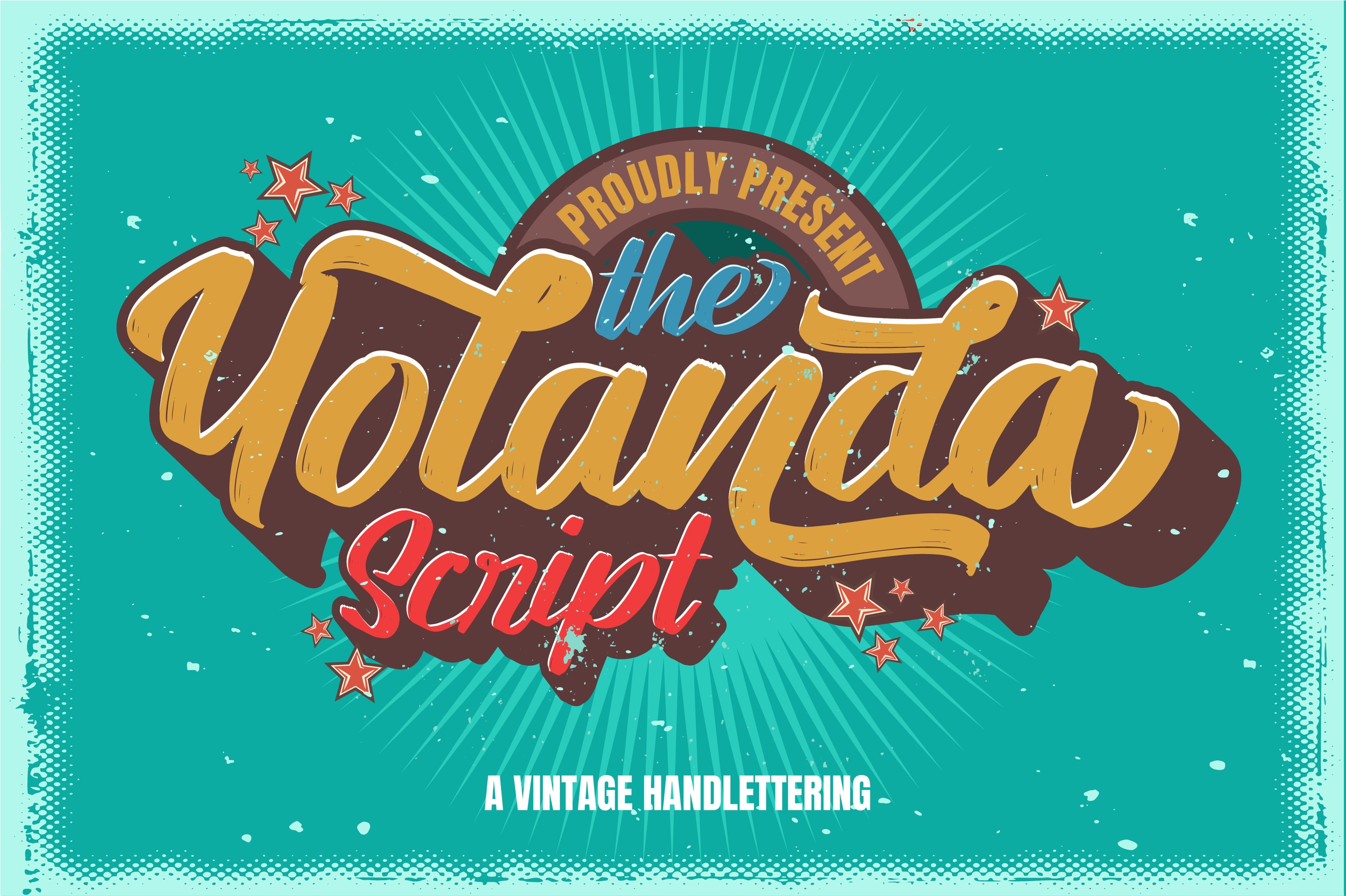
Yolanda Font
Yolanda Font is perfect for feminine brand identities, beauty product packaging, fashion magazine layouts, lifestyle blogs, boutique signage, cosmetics advertising, wellness center branding, elegant greeting cards, social media graphics, and modern calligraphy projects.
What makes Yolanda Font so exciting is its perfect fusion of contemporary elegance and approachable femininity that instantly creates emotional connections with modern audiences seeking authentic and sophisticated design solutions. This typeface captures the essence of modern femininity through its graceful curves and confident letterforms that balance strength with delicate beauty. The font's captivating appeal lies in its ability to communicate both professionalism and personal warmth, making it ideal for brands that want to appear both credible and relatable to their target demographic.
Yolanda Font comes in multiple weights and styles including Light, Regular, Medium, Bold, and Italic variations, along with special alternates and stylistic sets that provide designers with comprehensive flexibility for creating cohesive brand systems and elegant typographic hierarchies.
Whether you're developing feminine brand identities, creating lifestyle content, or designing modern marketing materials, Yolanda Font Free Download offers exceptional versatility and contemporary appeal. This sophisticated typeface performs beautifully across all media platforms, from digital interfaces to printed materials, maintaining its elegant character while ensuring optimal readability. The font's carefully balanced proportions and refined details create harmonious layouts that enhance brand messaging and user experience.
Design professionals and lifestyle brands consistently select Yolanda Font for projects targeting modern women and contemporary audiences. Its sophisticated styling makes it particularly effective for beauty brands, fashion retailers, wellness companies, and lifestyle services seeking to communicate quality, elegance, and modern femininity. The font's versatile nature allows seamless integration across various touchpoints while maintaining consistent brand voice and appealing to audiences who value both style and substance in their brand interactions.